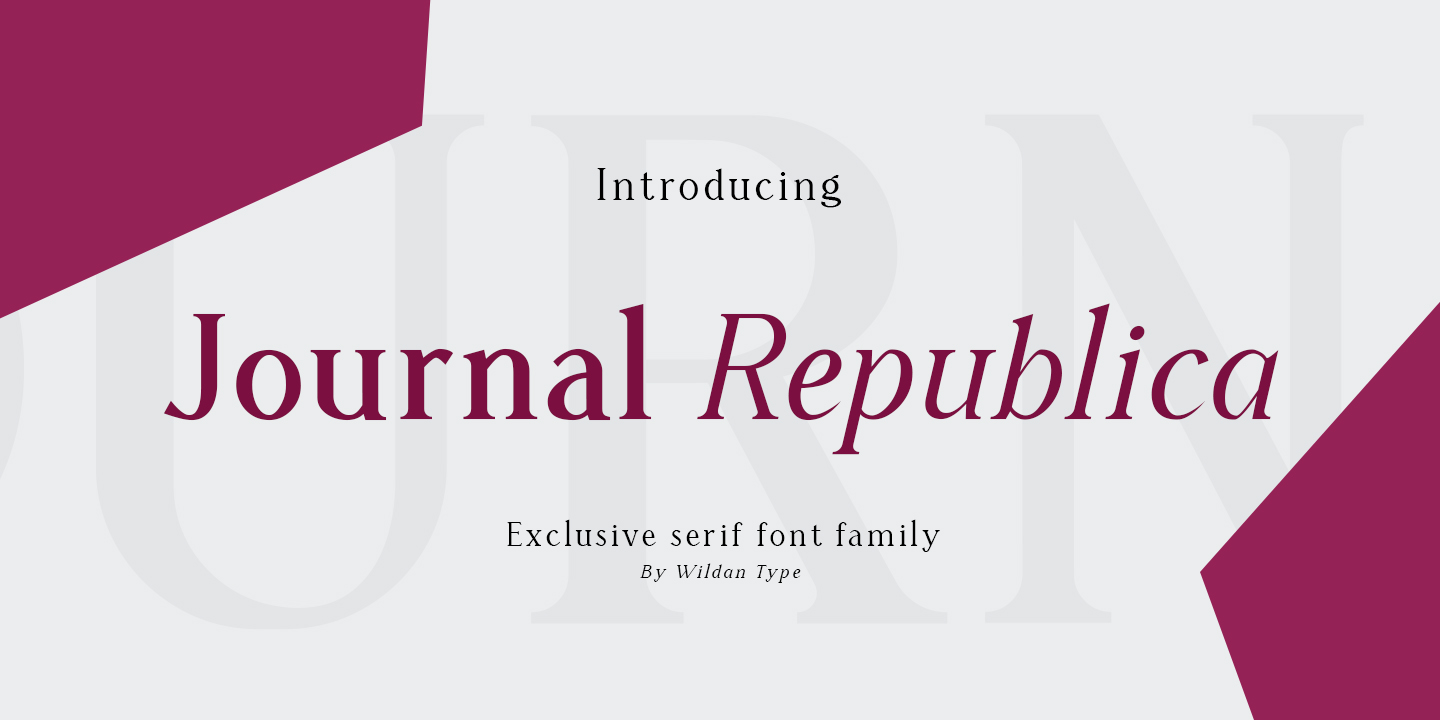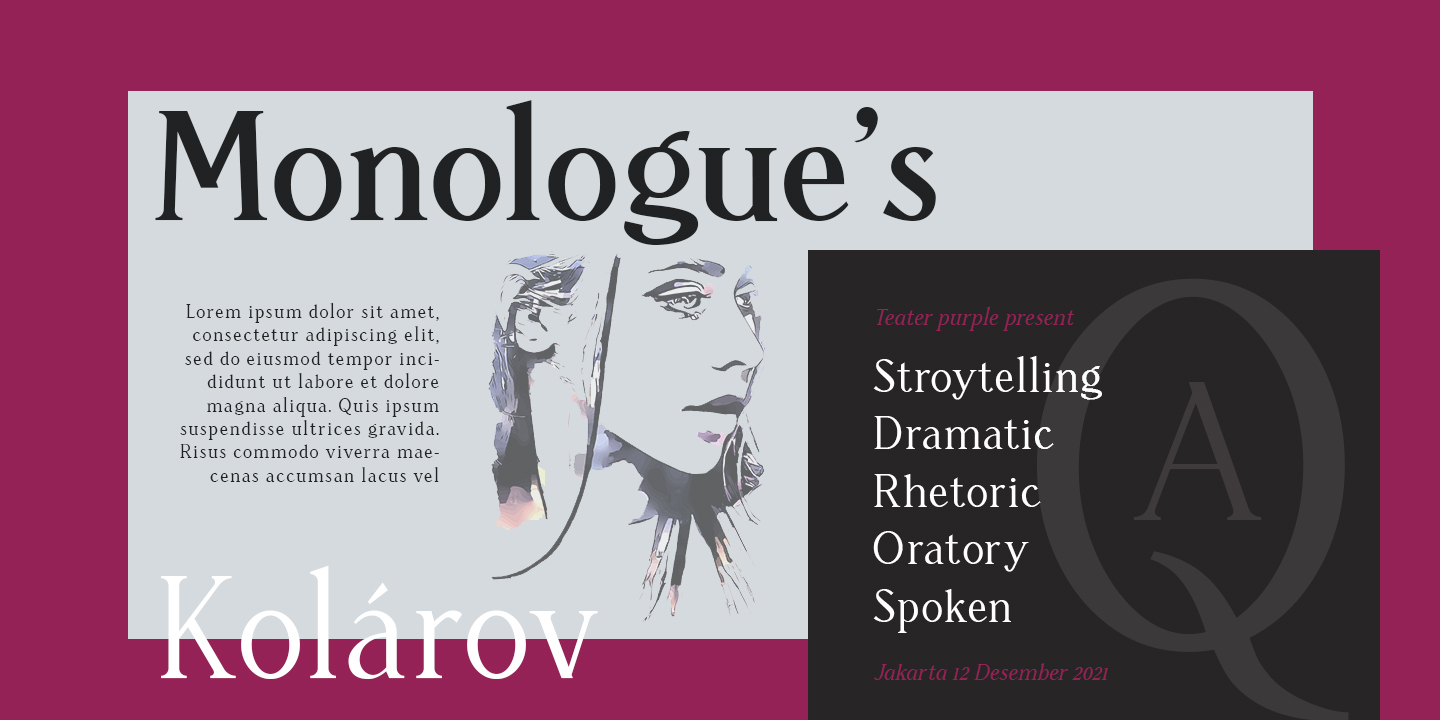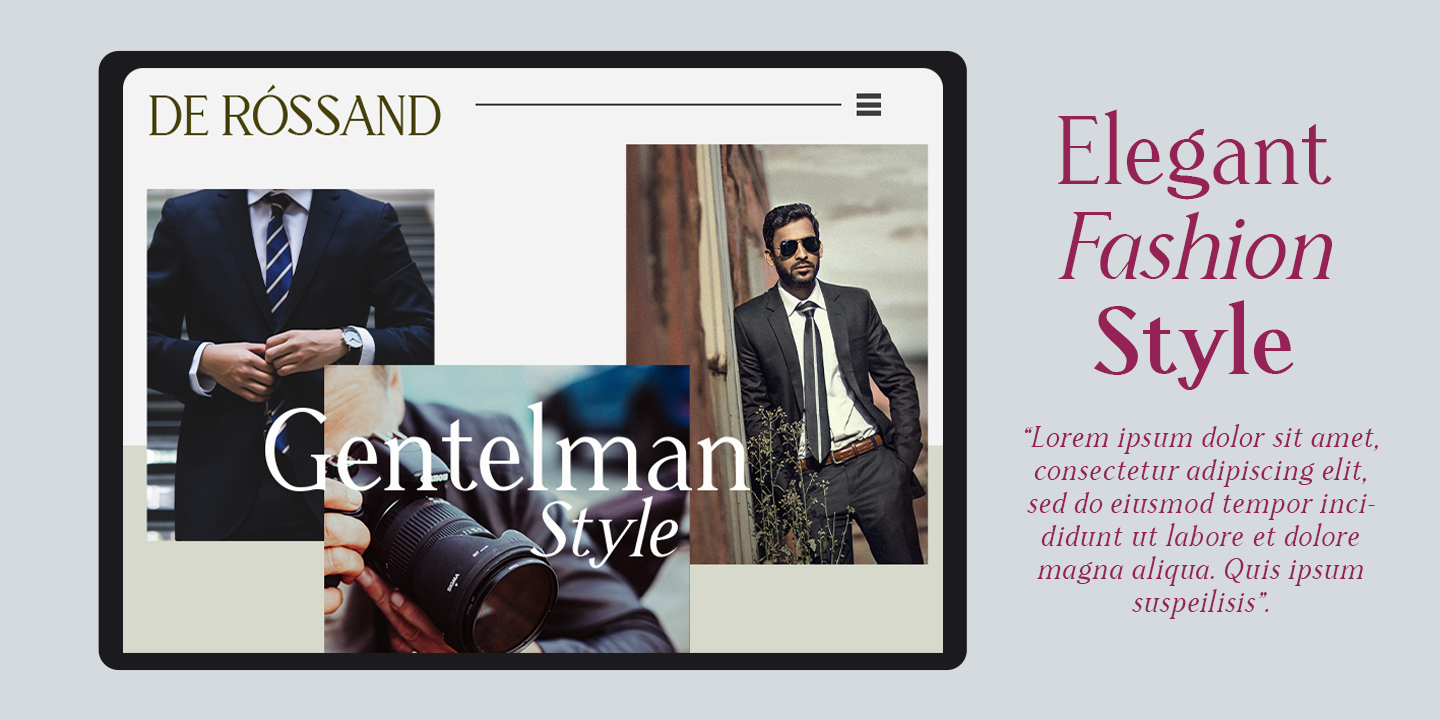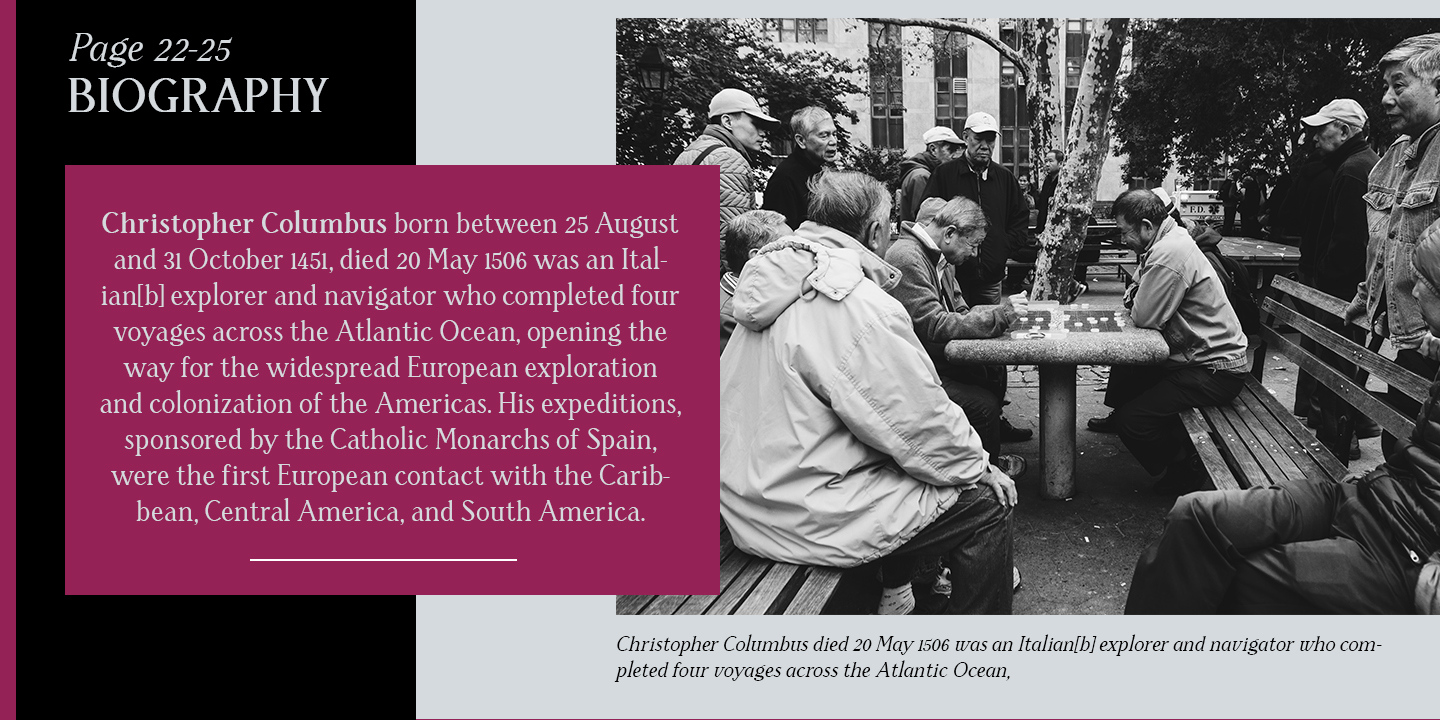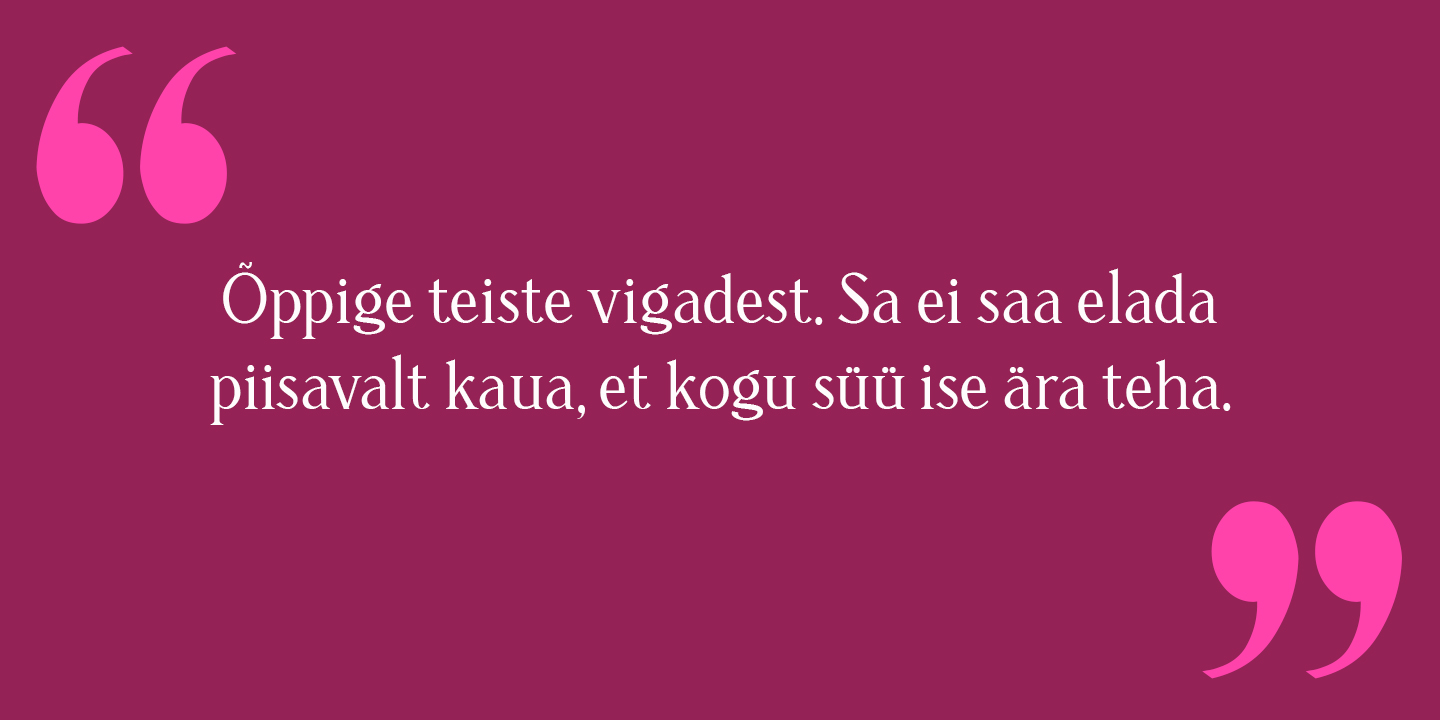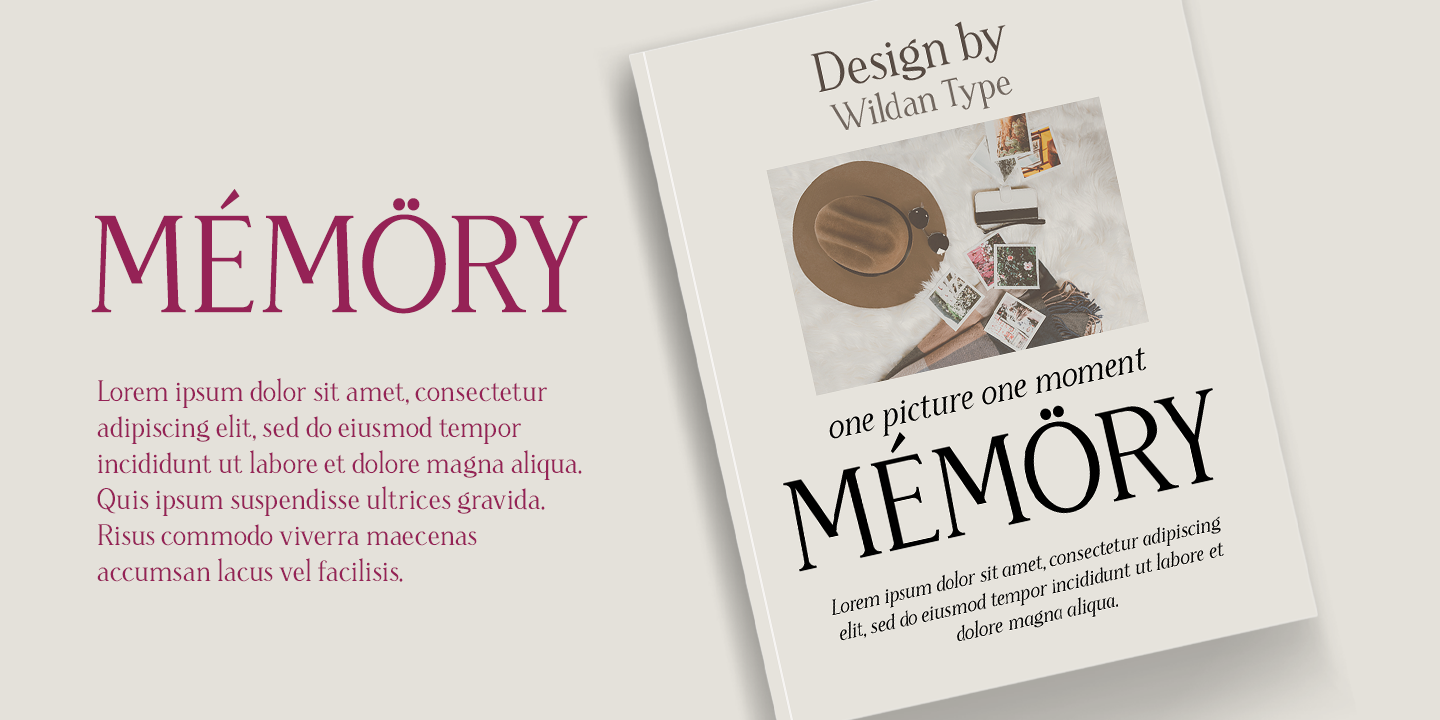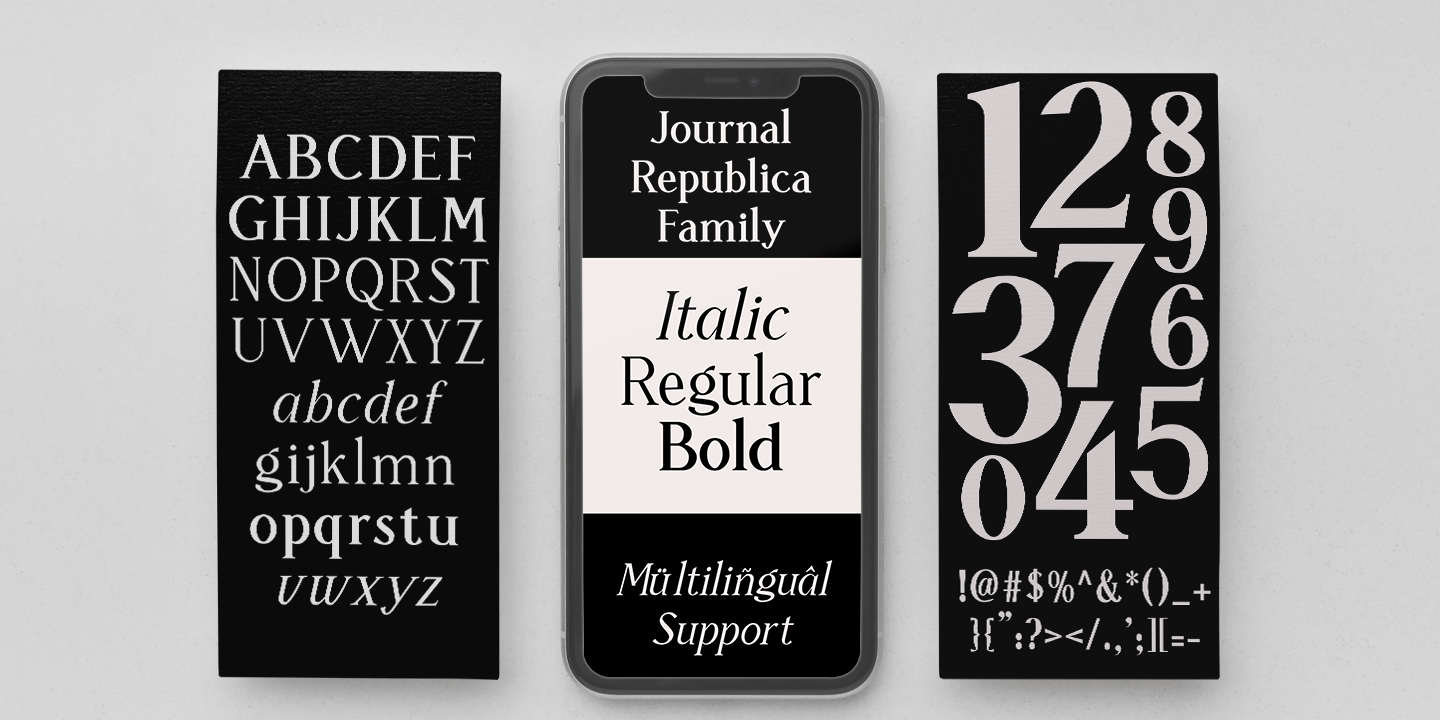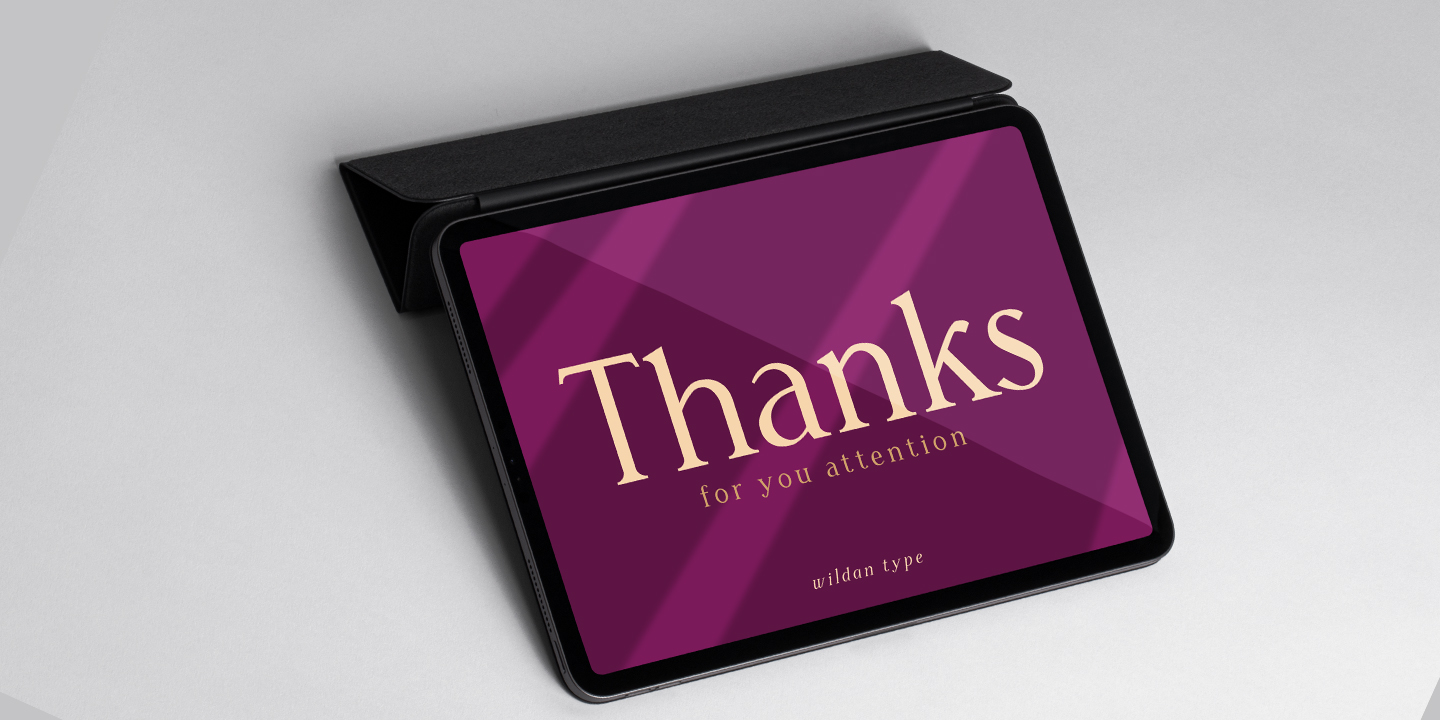
Journal Republica is a serif typeface inspired by the beauty of classic serif and calligraphic style, fused with modern appeal to blend with modern needs.
His family is Regular, Italic, and Bold. Journal Republica offers many possibilities to be applied in many graphic or editorial projects. The Regular weights are suitable for short paragraph, and Bold weight are perfect for headlines, perfectly suitable for display purpose such as branding, editorial, book covers, and packaging.